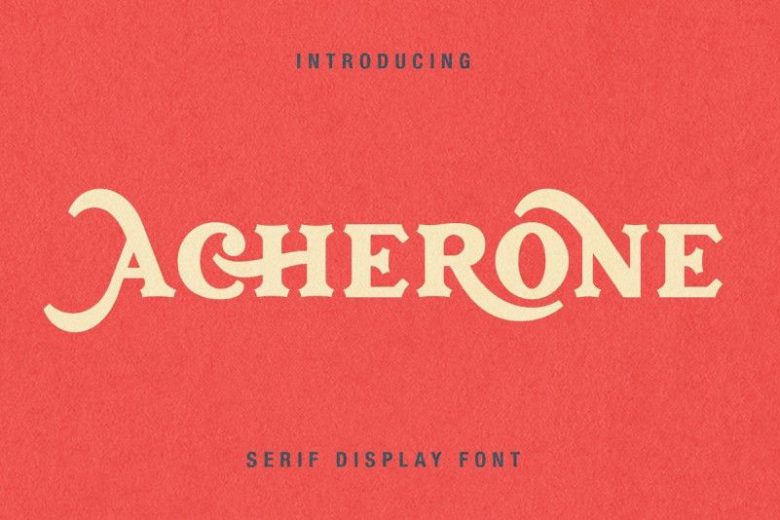
Acherone Font
Acherone Font is a bold, powerful and sporty font, perfect for sports logos, branding, posters, clothing designs with a bold and confident look.
It includes allcaps characters, with over 500 glyphs with beginning swashes and ending swashes, a full set stylistic alternates ss01 – ss10, some ligatures features that makes the font look more esthetics.